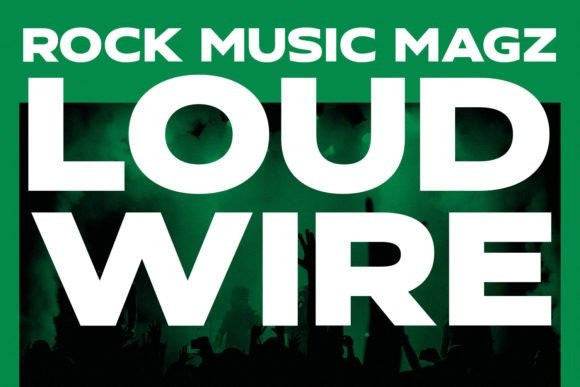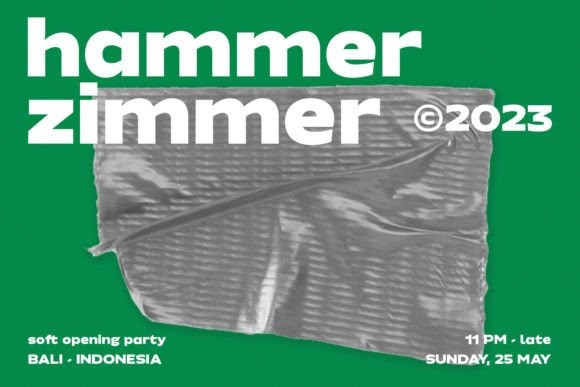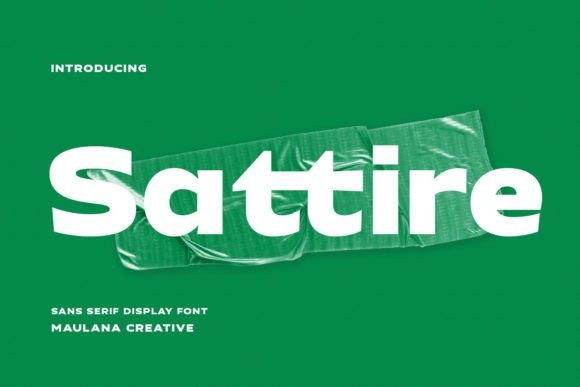
Sattire Font
Sattire Font is a casual modern expanded sans display font. Bold stroke, fun character with a bit of ligatures and alternates. To give you an extra creative work. Sattire font support multilingual more than 100+ language.
SattireFont is good for logo design, Social media, Movie Titles, Books Titles, a short text even a long text letter and good for your secondary text font with script or serif. Make a stunning work with Sattirefont.